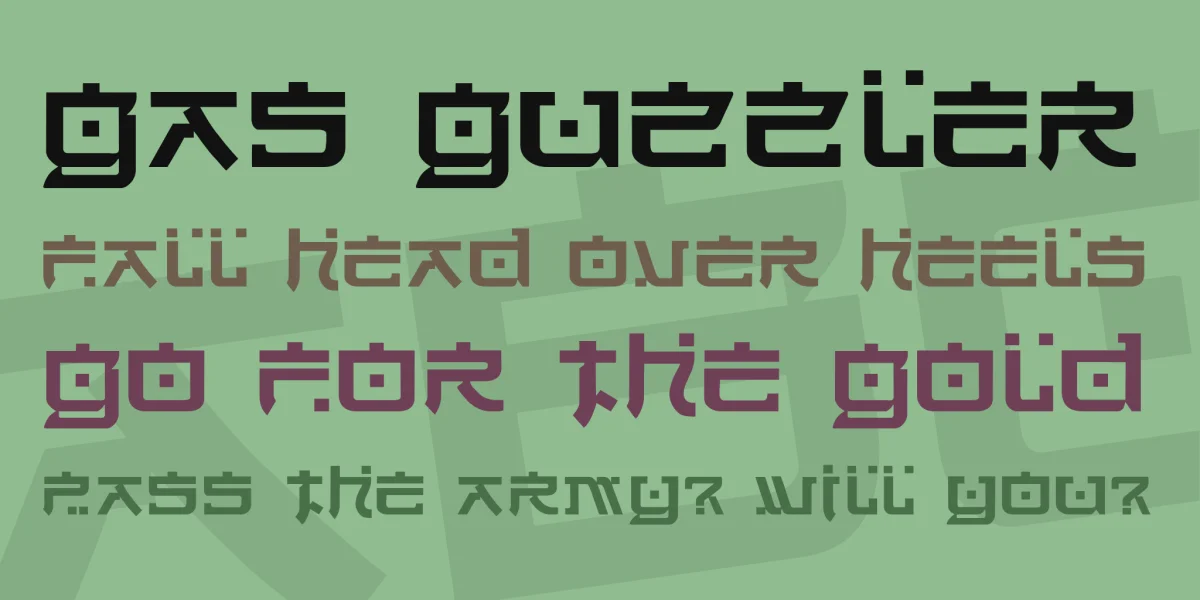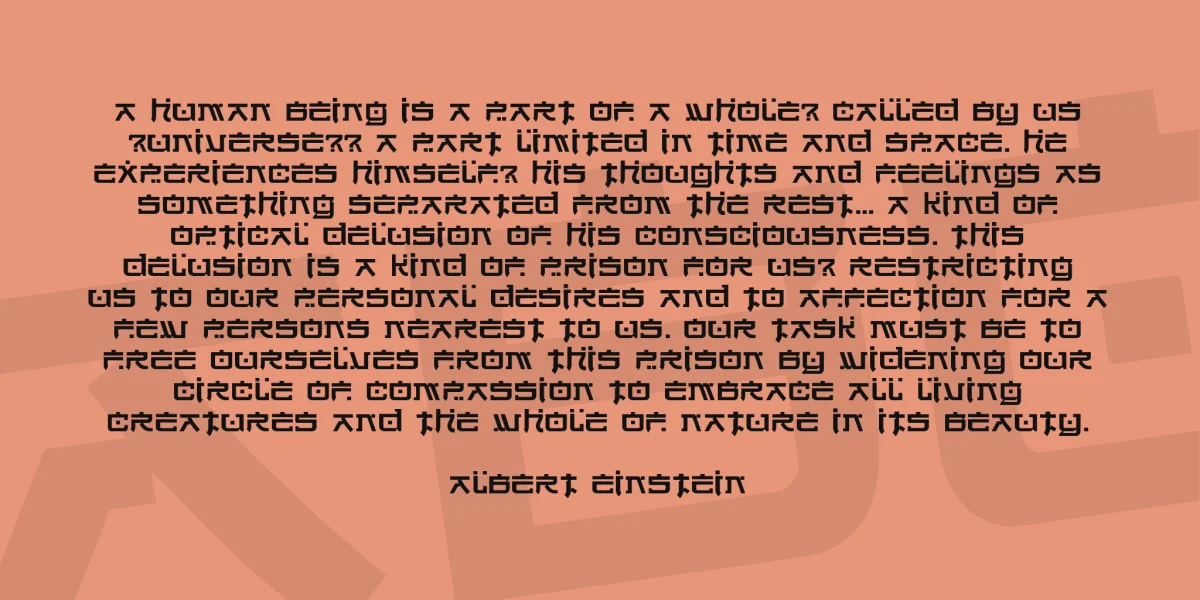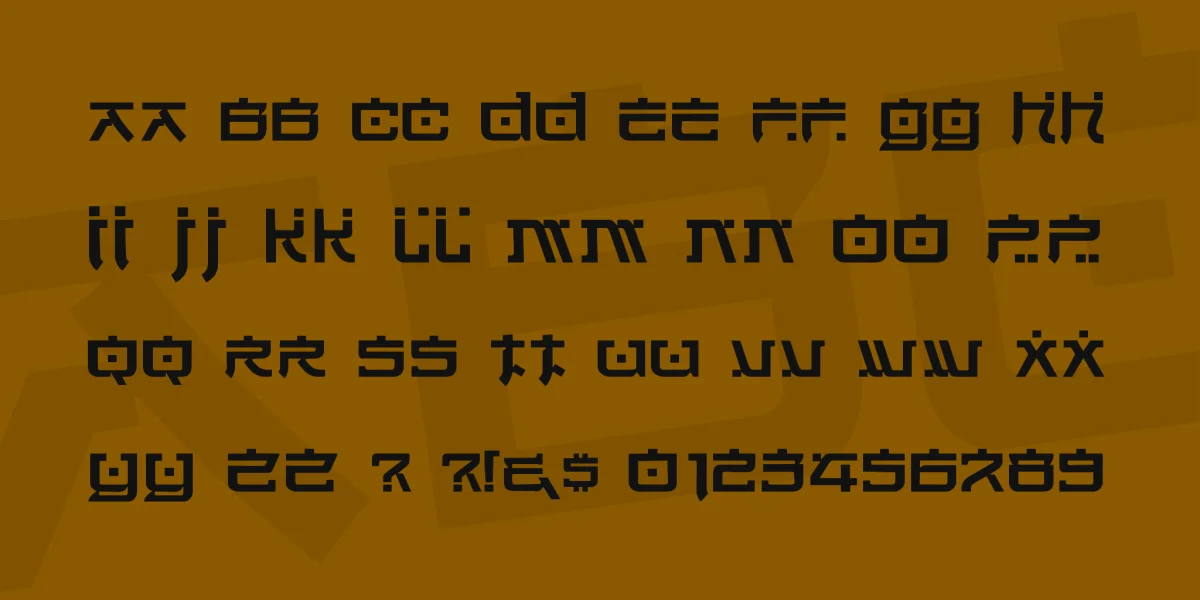
Hirosh (Dingbats) True Type Font is a font made up of Unusual modernistic letters with a Japanese flavor, and Dingbats patterned after Japanese crests and design motifs. Contains numbers, letters, punct. and many "dingbats".